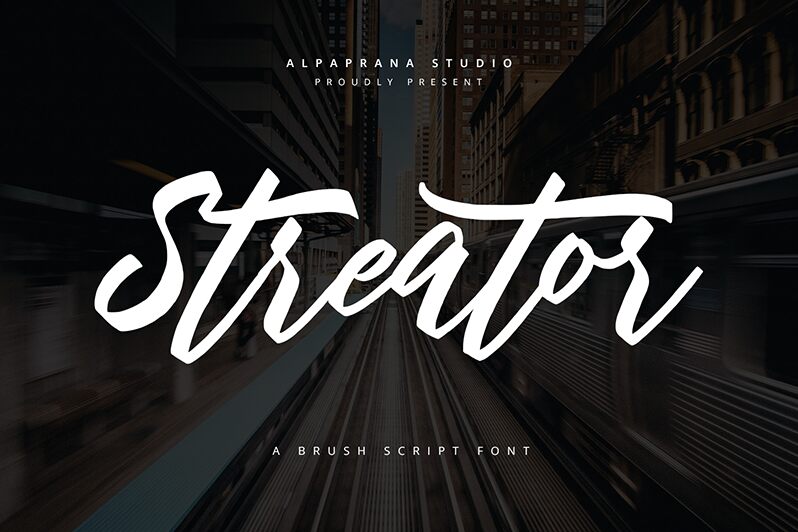
Streator font family is a handwritten free font duo by Alpaprana Studio. The two font styles offer an elegant and modern typeface that is also expressive, versatile, dynamic, and impactful. It is contemporary and artistic with flowing letters, a handcrafted texture, and the power to beautify any design it’s featured in.
It will be a great font for quotes, invitations, logos, magazine covers, social media sites, posters, packaging, T-shirts, and other branding materials. So download it free today, spread it around, and apply it to any future design you currently have or plan on working on in the future.